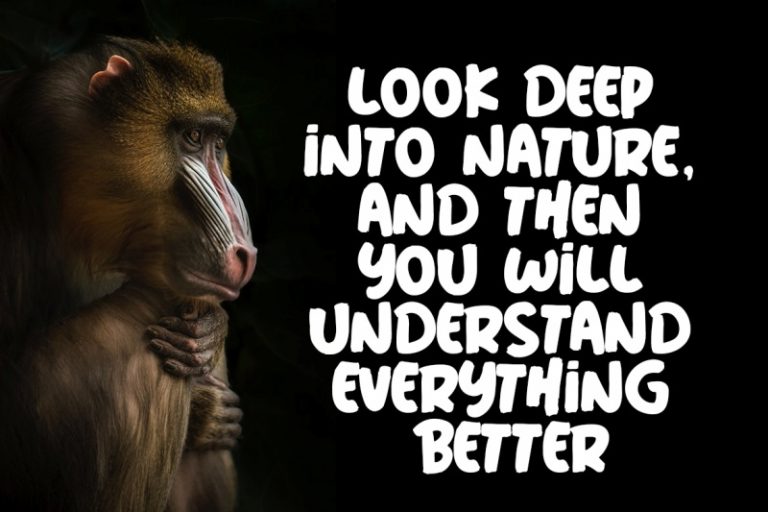
Wild Nature
Wild Nature is eye catchy font. This is bold , strong, and fun.
If you love fun design, you can choose this font to be with you. Very good for logo, watermark, quotes, clothing, or signage.
• Available in 2 styles ; TEXTURED and CLEAN